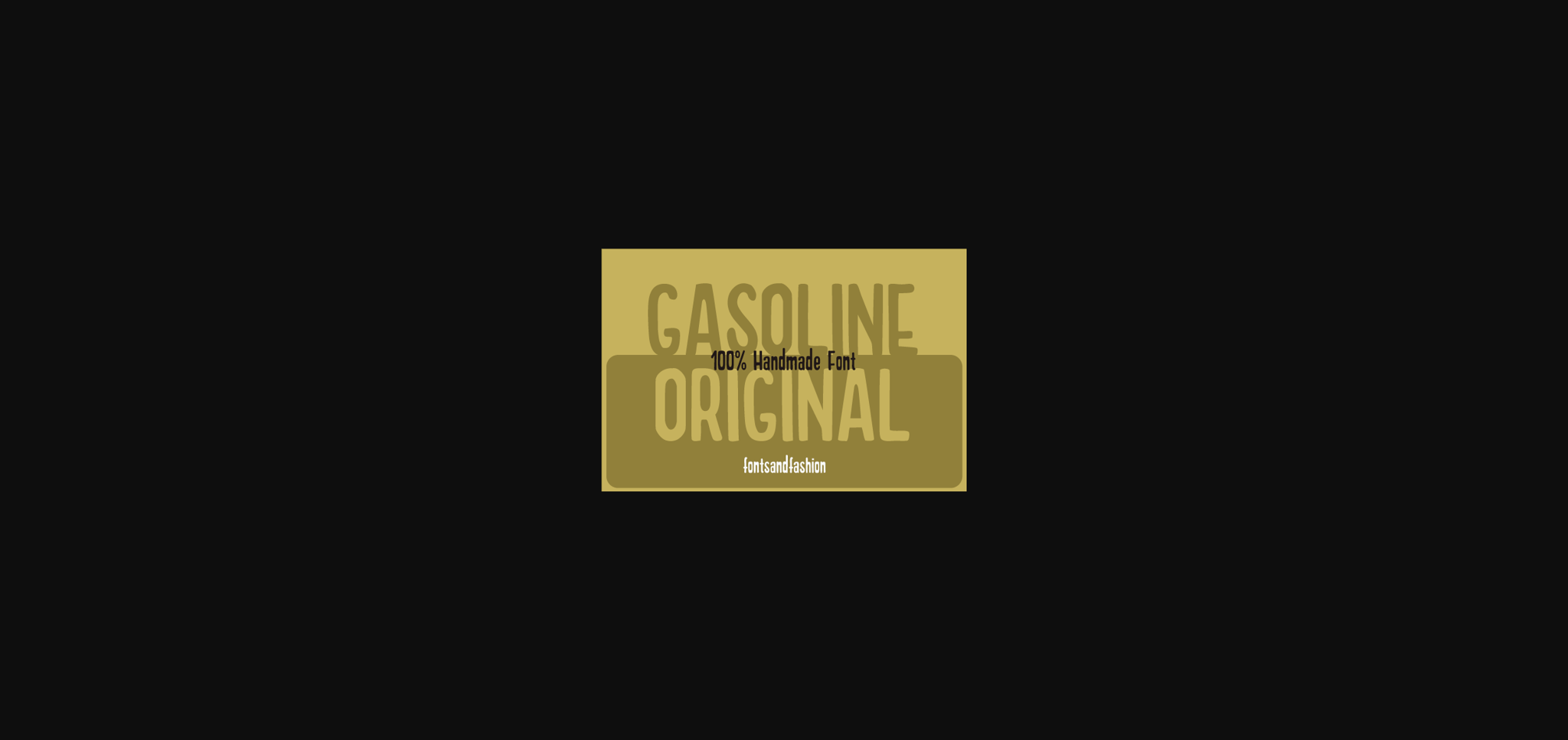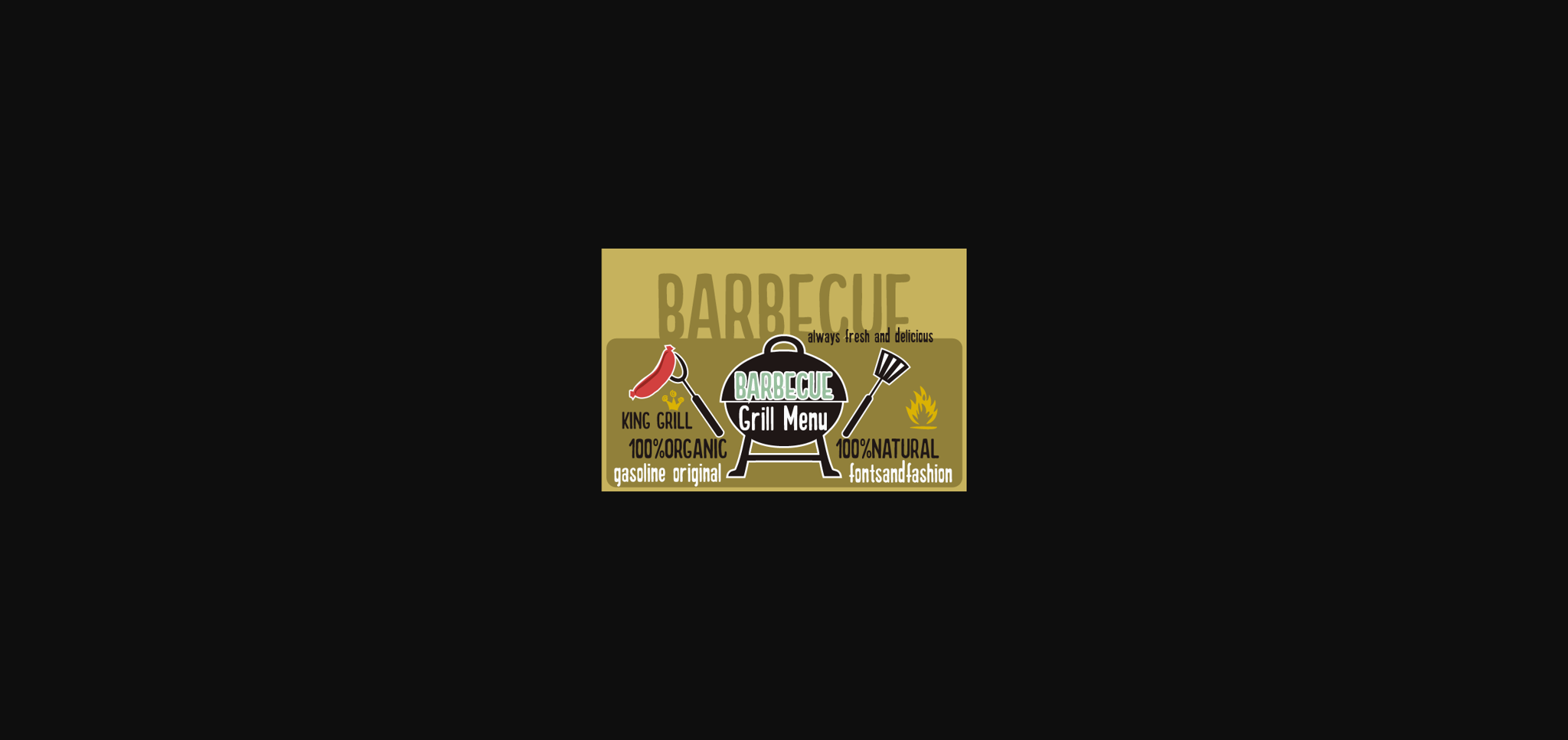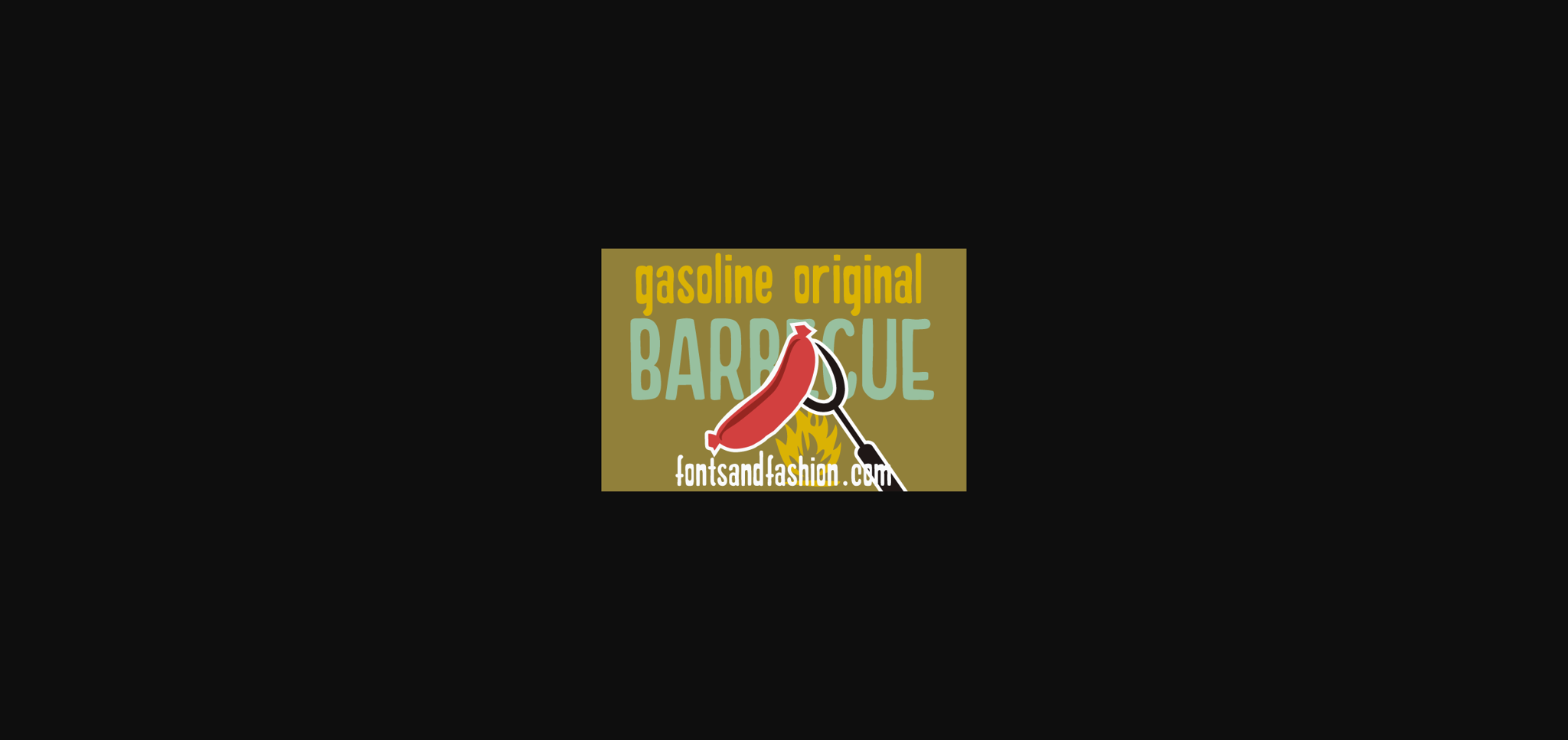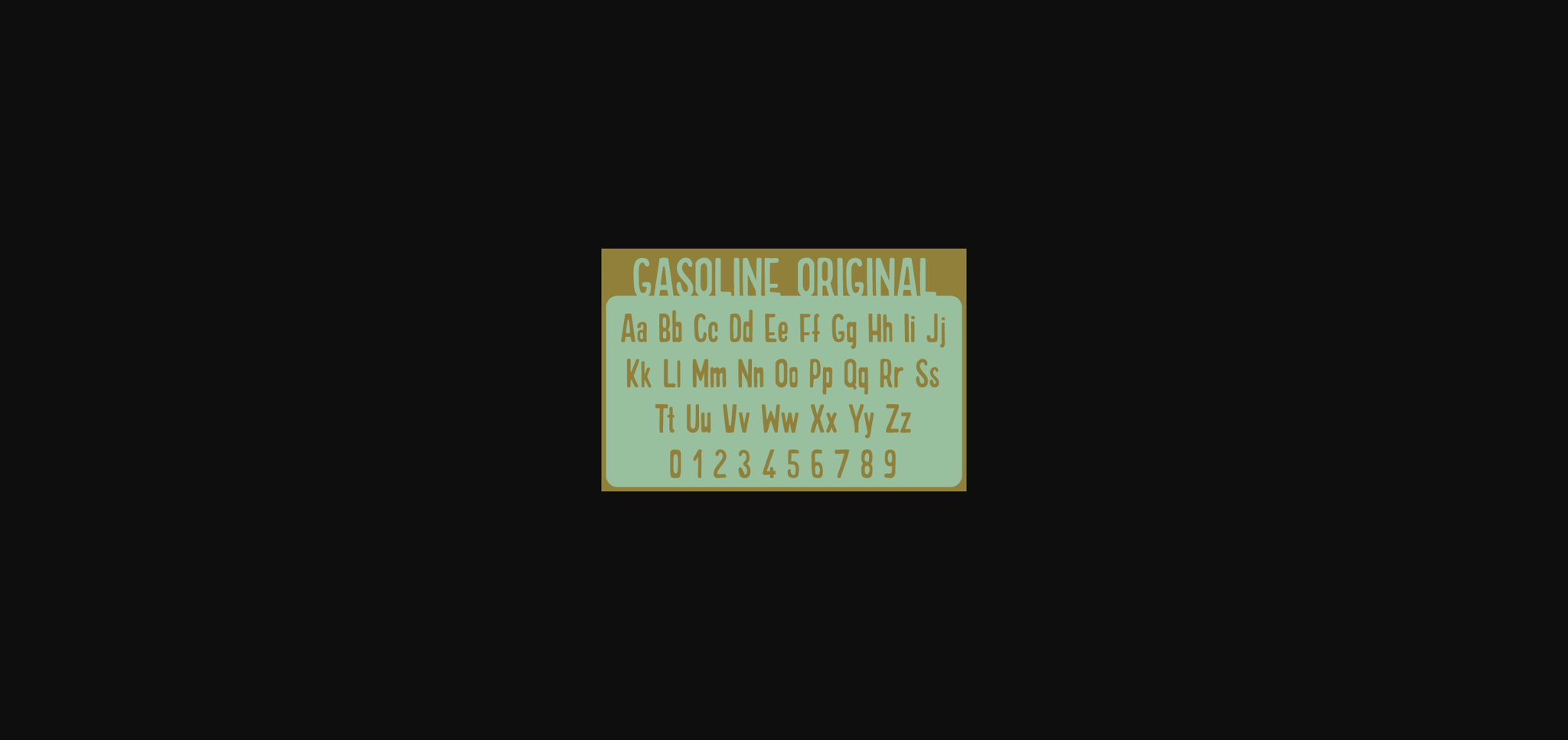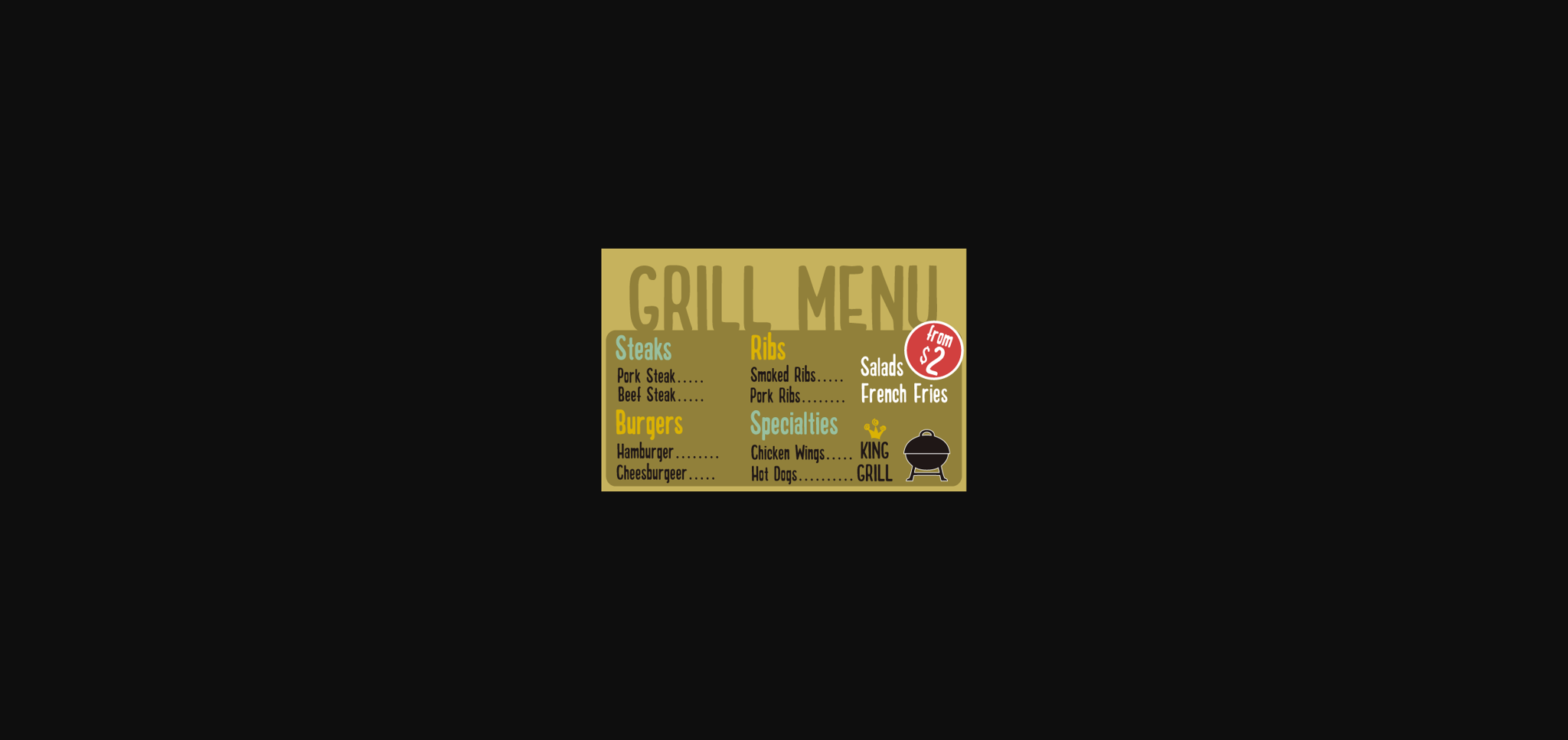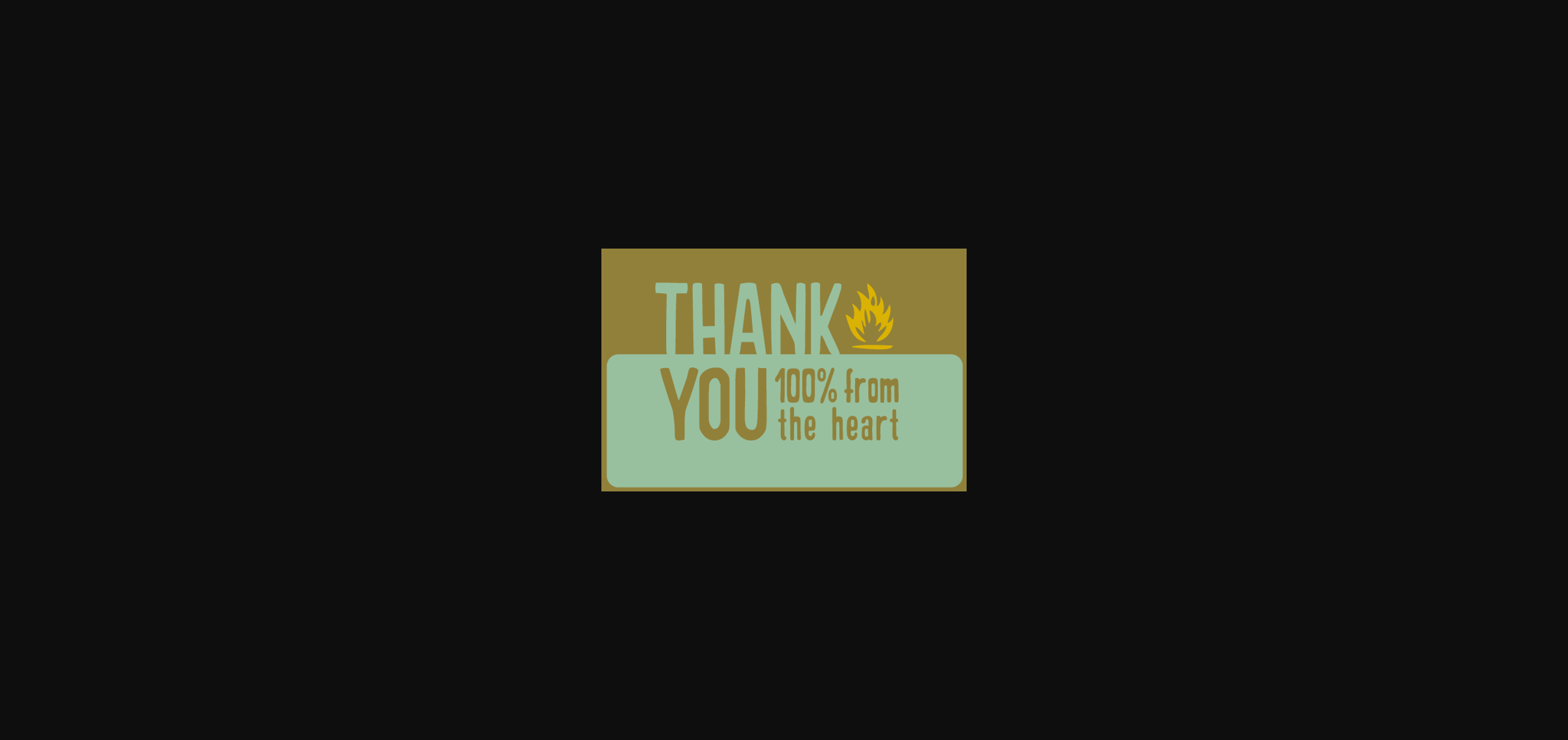
Gasoline Original Font
About Gasoline Original Font
“Gasoline Original” is a handmade font inspired by the BBQ parties of the ’60s.
Its use is very versatile, thanks to the simplicity and the particularity of the stroke. “Gasoline Original” is a perfect font for home decoration crafts, posters, product packaging, product designs, label, logo, social media posts, quote, advertisements, invitations, stationery, t-shirt, fabric bag, cover book, and any type of creative projects you can imagine.